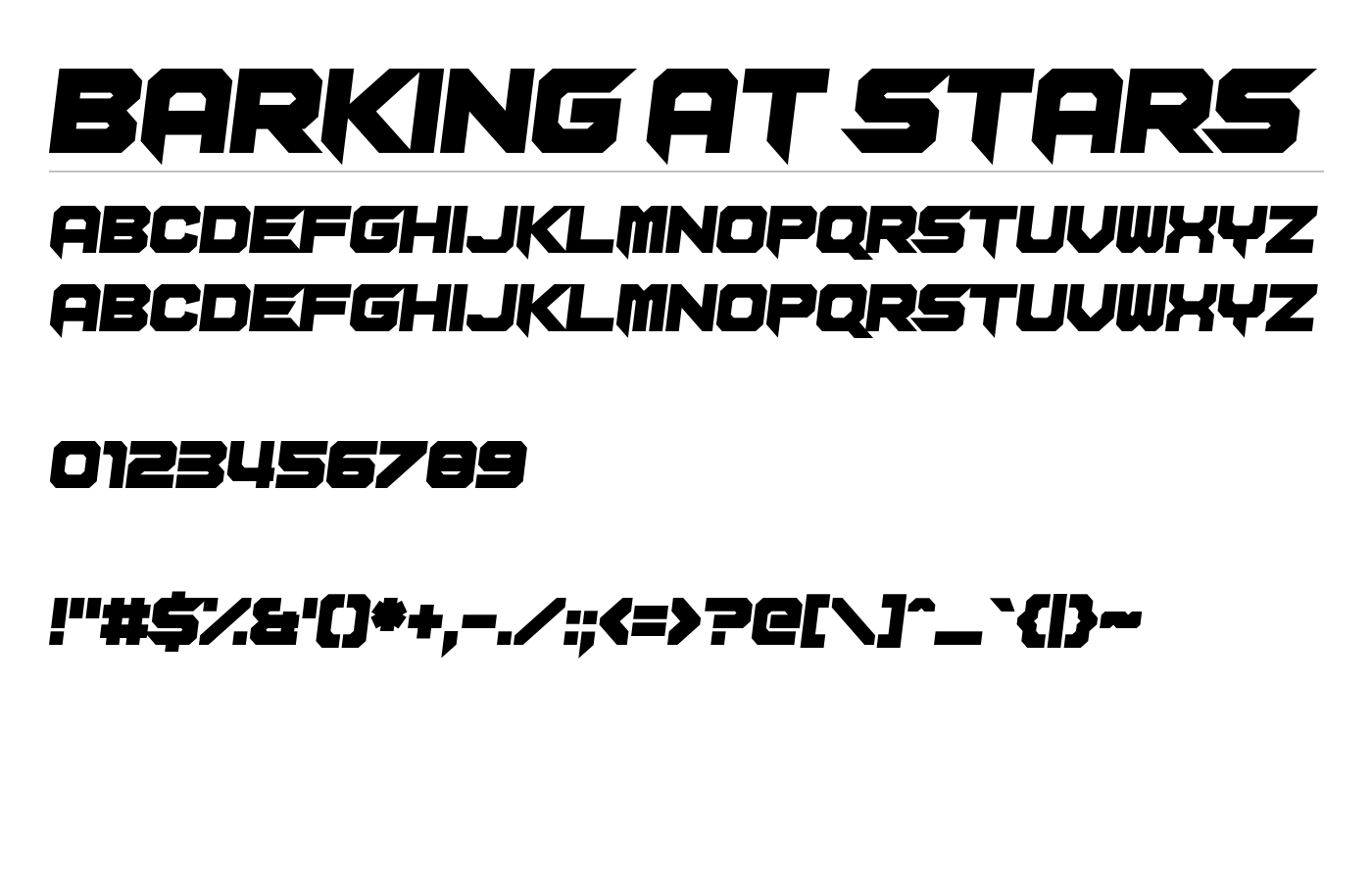
Barking at Stars is a bold, angular display font with a futuristic and dynamic feel. Its strong geometric shapes and sharp edges create an impactful and energetic look, making it ideal for headlines, logos, and branding that seek to convey power and modernity. This font works especially well in creative projects, tech-related designs, or any context where a striking, unconventional style is desired.
Barking at Stars Font
About Barking at Stars Font
| Designer | Allison J James |